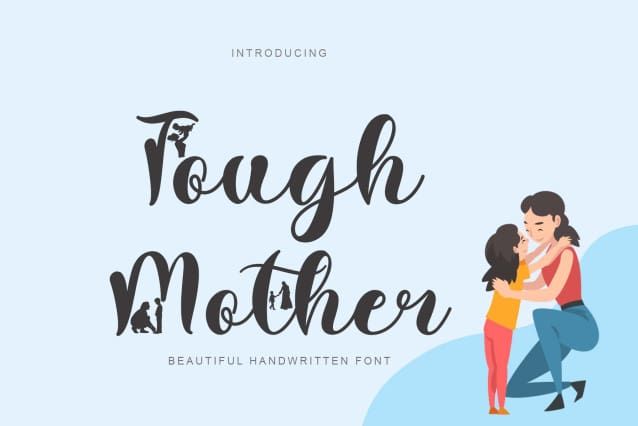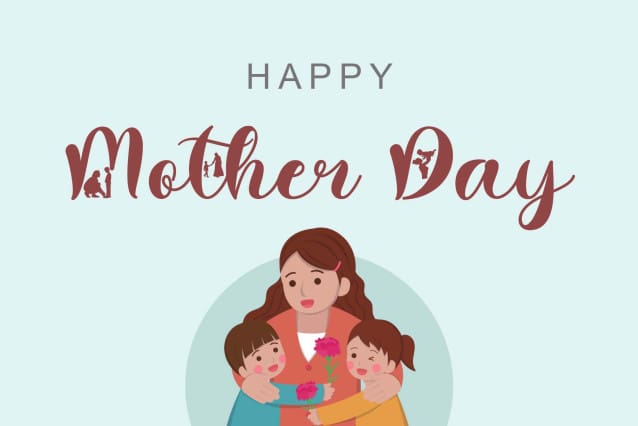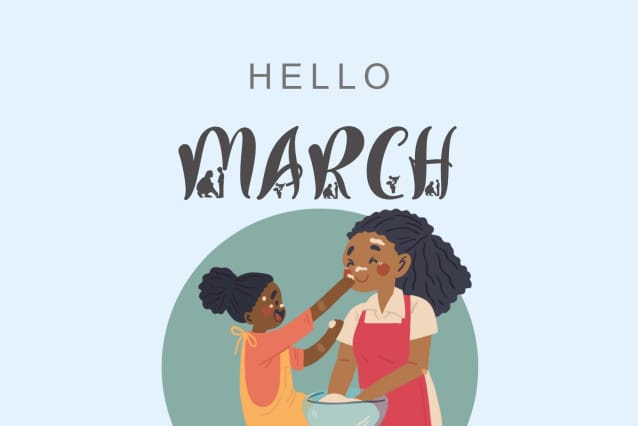
Tough Mother Font
Tough Mother Font is a cute script decorative font. This font dedicated to awesome celebration days is perfect for writing christmas invitations, cards, or any other design that requires a soft, characterful touch!